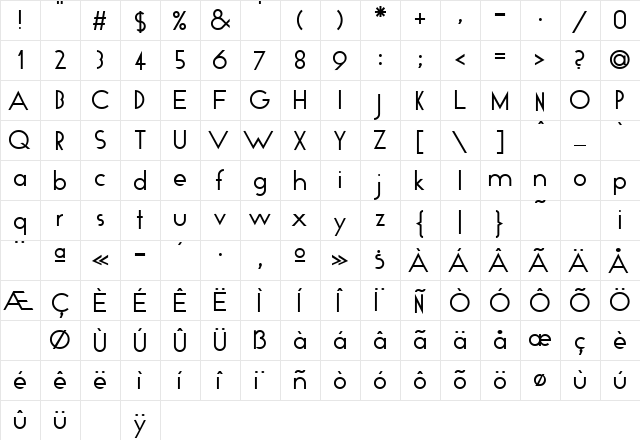
Glo Regular
Design Context for Glo Typeface
Glo takes a measured approach to typography — its balanced proportions and neutral character make it a reliable workhorse for both digital and print work.